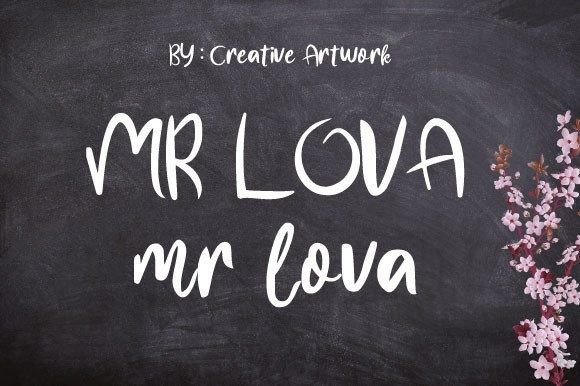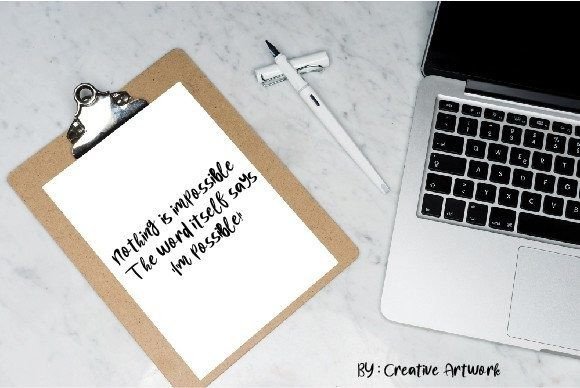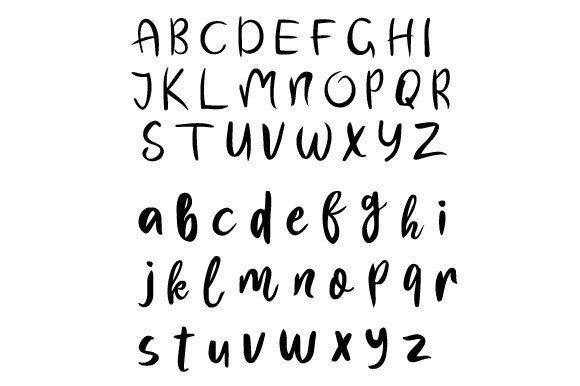
Introduction to Mr Lova Font
Mr Lova is a modern display font that is stylish and fresh.
Its natural and clean style is perfect for fashion branding, editorial designs, headlines, or anything that needs a little whimsy touch .
Key Features of Mr Lova Font